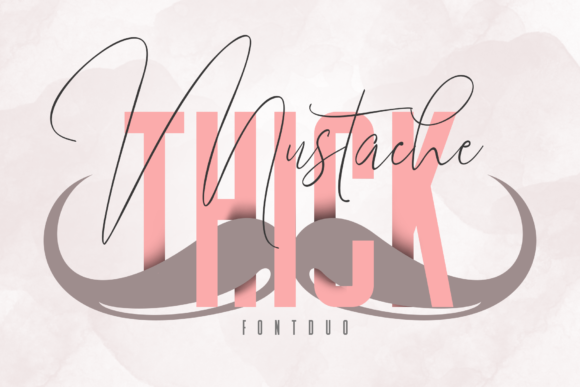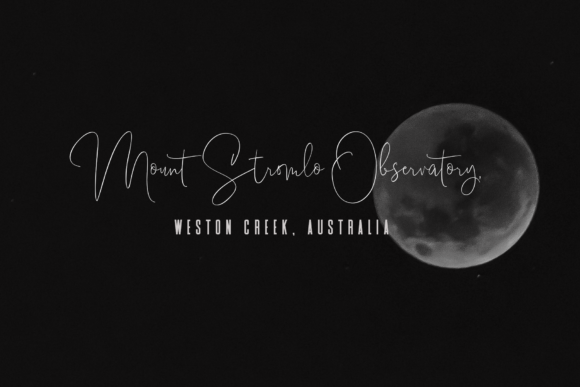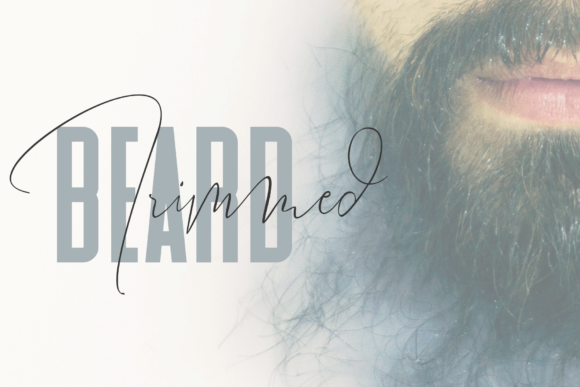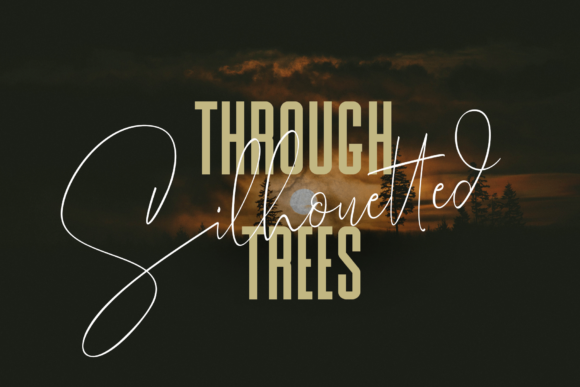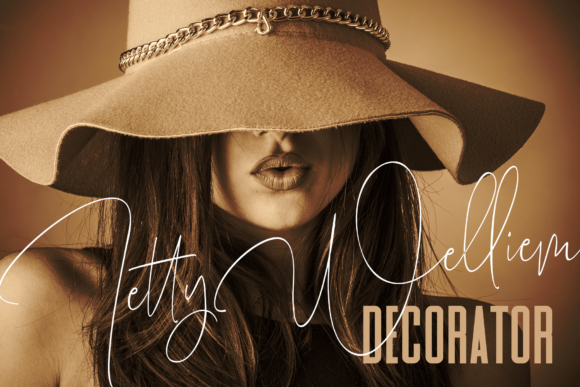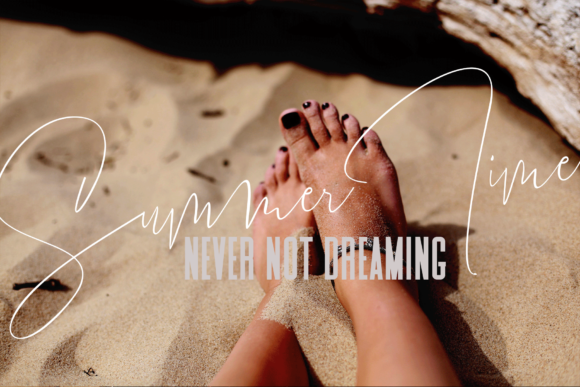
Mustache and Thick Font
About Mustache and Thick Font
The Mustache and Thick is a fun font duo. The Mustache is a handmade script font with natural characteristics, and Thick is a normal sans font with delicate and gentle characteristic. Both fonts can be combined together perfectly but are also amazing as great stand-alones.